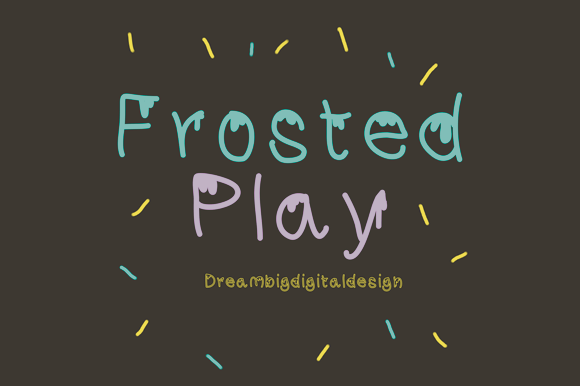
Introducing Frosted Play Font - a typeface that exudes joy, sweetness, and delightful fun! Step into a world of whimsy and charm as you explore the creative possibilities with Frosted Play.
This script font is crafted with meticulous detail, capturing the playful essence of frosting drips. Its cheerful and whimsical style evokes a sense of warmth and nostalgia, making it ideal for adding a touch of sweetness to your designs.
With Frosted Play as your creative companion, you can transform your projects into culinary masterpieces. Picture mugs adorned with delectable frosting messages, T-shirts displaying playful quotes, or cards and invitations that radiate pure joy. Unleash your inner baker and let Frosted Play be the sprinkle of sweetness that elevates your designs to new heights.
Whether you're designing for a bakery, a confectionery, or simply cherishing the sweet moments in life, Frosted Play is the perfect font to capture the essence of all things delightful. Let your designs speak volumes of joy and lightheartedness with Frosted Play, the font that's sure to leave a lasting impression.
So, embark on a delectable design journey with Frosted Play Font. Let your creativity soar, add a dash of sweetness, and create designs that are as captivating as a freshly frosted masterpiece. Let Frosted Play be your secret weapon to create designs that are sure to delight and enchant.